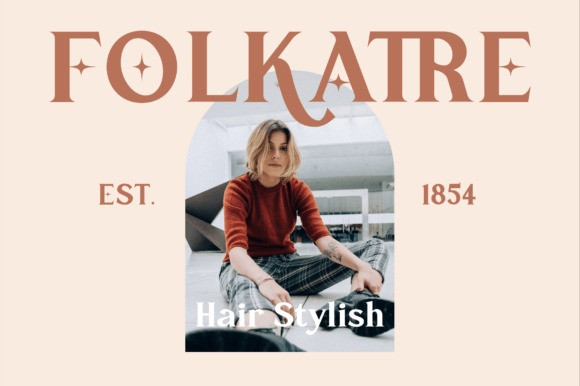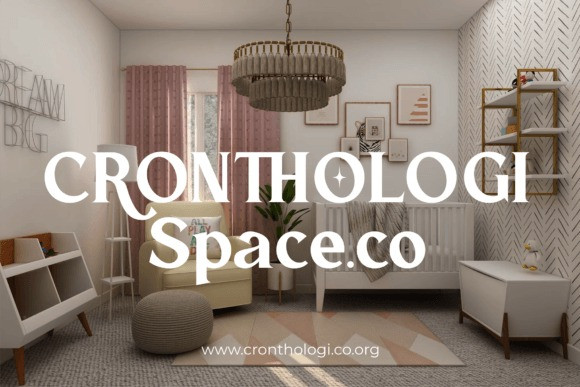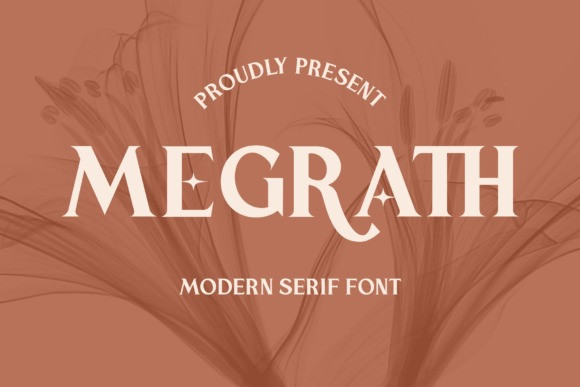
Megrath Font
Megrath Font is a modern and classic serif typeface that has its own unique style. This typeface is perfect for an elegant & luxurious logo, book or movie title design, fashion brand, magazine, clothes, lettering, quotes, and so much more.